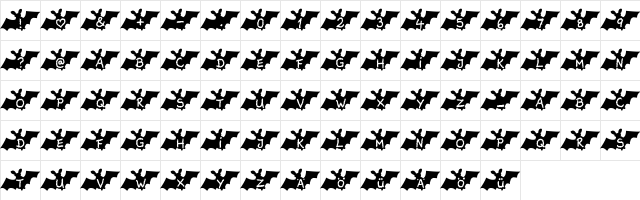
LetterBat AH Regular
Design Context for LetterBat AH Typeface
LetterBat AH is a composed and adaptable typeface that performs quietly and consistently across a wide range of design contexts.